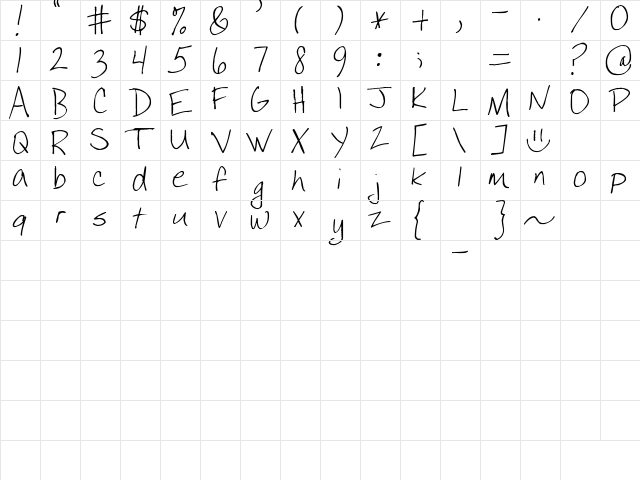
Pea Stefanieva Regular
Design Context for Pea Stefanieva Typeface
Pea Stefanieva is a composed and adaptable typeface that performs quietly and consistently across a wide range of design contexts.